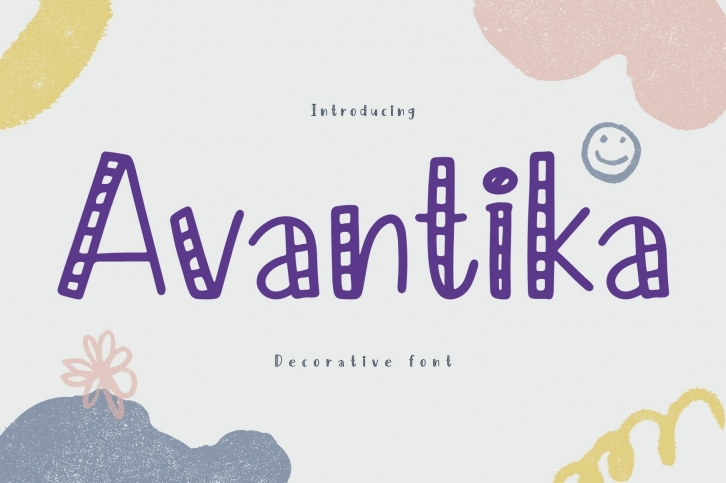
Avantika is a cute Christmas decorative is a beautiful font that was designed by Brown Cupple Typeface. It's a great choice for designers and creatives who need such a font. It was released on October 18, 2022 and the file size is 5.51 MB. Avantika is a cute Christmas decorative may give a more youthful, expressive and casual look to your project. It is a very beautiful, refined, elegant, and high-quality font.